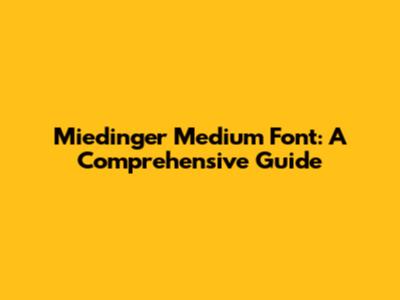
Miedinger Medium Font: A Comprehensive Guide
Introduction to Miedinger Medium
Hey guys! Let's dive into the world of Miedinger Medium, a font that you might not immediately recognize by name, but you've definitely seen around. This isn't just another typeface; it's a workhorse, a reliable and versatile font that gets the job done without shouting for attention. It's like that dependable friend who’s always there to help you move – no fuss, just pure functionality.
Miedinger Medium is part of a larger family of fonts, often associated with the Helvetica or Neue Haas Grotesk lineage. What sets it apart is its clean, neutral design. This makes it incredibly adaptable to a wide range of applications. Think about those moments when you need a font that doesn't distract from your message but still looks professional and polished. That’s where Miedinger Medium shines. Its strength lies in its simplicity, offering a balanced and readable appearance in both print and digital formats.
When we talk about its characteristics, several aspects stand out. The letterforms are meticulously crafted, with consistent stroke widths and a harmonious balance between the positive and negative spaces. The x-height (the height of the lowercase letters) is generous, enhancing readability, especially in longer texts. The apertures (the openings in letters like 'c' and 'e') are open and clear, further contributing to its legibility. All these elements combine to create a font that is both aesthetically pleasing and highly functional.
Moreover, Miedinger Medium’s versatility extends to various design projects. It's an excellent choice for body text in books, magazines, and websites. Its clarity ensures readers can comfortably engage with the content. Additionally, it works well in signage, corporate communications, and branding materials where a sense of professionalism and clarity is paramount. You can even see it in user interfaces, providing a clean and unobtrusive look that enhances the user experience.
So, whether you're designing a sleek annual report, crafting a user-friendly website, or creating clear and effective signage, Miedinger Medium is a font that deserves a place in your toolkit. It’s the unsung hero of typography, always ready to deliver clarity and style without stealing the show.
Key Characteristics of Miedinger Medium
Alright, let's get into the nitty-gritty details that make Miedinger Medium so special. When you’re choosing a font, it’s not just about picking something that looks nice; it’s about understanding its underlying characteristics and how they contribute to the overall impact of your design. So, what are the key features that define Miedinger Medium? Buckle up; we’re about to dissect this typeface like a pro.
First off, its neutrality is a defining trait. Miedinger Medium doesn’t scream for attention. It doesn’t have quirky serifs or flamboyant curves. Instead, it presents a clean, sans-serif design that allows the content to take center stage. This neutrality makes it incredibly versatile because it doesn’t impose a particular mood or style. It’s a blank canvas that adapts to the tone and context of your message.
Next up is its legibility. This is crucial, especially for body text. Miedinger Medium boasts excellent legibility due to several factors. The open apertures in letters like 'a,' 'c,' 'e,' and 's' prevent them from filling in, even at smaller sizes. The consistent stroke weight ensures that each letter is clearly defined, and the generous x-height (the height of the lowercase letters) makes it easier to distinguish between characters. The result? A font that’s easy on the eyes, even during extended reading sessions.
Consistency is another hallmark. From the spacing between letters to the overall structure of each character, Miedinger Medium maintains a uniform appearance. This consistency contributes to its clean and professional look. It also ensures that the font behaves predictably across different sizes and weights, making it reliable for a wide range of applications.
The letterforms in Miedinger Medium are meticulously crafted. Each character is designed with precision, balancing form and function. The curves are smooth, the lines are clean, and the overall proportions are harmonious. This attention to detail results in a typeface that is not only legible but also aesthetically pleasing. It’s the kind of font that you might not consciously notice, but it contributes to a subtle sense of quality and refinement.
Moreover, Miedinger Medium excels in various environments, whether it’s print or digital. Its clear design translates well to screens, ensuring that it remains legible even at smaller sizes and lower resolutions. In print, its consistent stroke weight and well-defined letterforms produce crisp, clean results. This adaptability makes it a reliable choice for projects that span both mediums.
In summary, Miedinger Medium’s key characteristics – neutrality, legibility, consistency, and meticulous craftsmanship – make it a standout typeface. It’s a font that prioritizes clarity and functionality without sacrificing aesthetics. So, next time you’re looking for a font that gets the job done with quiet confidence, remember the qualities that make Miedinger Medium a true design essential.
By following these tips, you can use Miedinger Medium effectively to create designs that are clear, professional, and visually appealing. It’s a versatile font that can enhance your projects when used thoughtfully and strategically.